The Witcher Font
The Witcher font is dark, medieval, and dripping with fantasy vibes—exactly what you’d expect from a world full of monsters, magic, and destiny. Its sharp, gothic-inspired lettering feels like something pulled from ancient scrolls or carved into the blade of a witcher’s sword. The Witcher font doesn’t just spell out a title—it creates atmosphere, setting the stage for a story that’s dangerous, mystical, and epic in scale. I couldn’t find the original font but I found 2 alternatives.
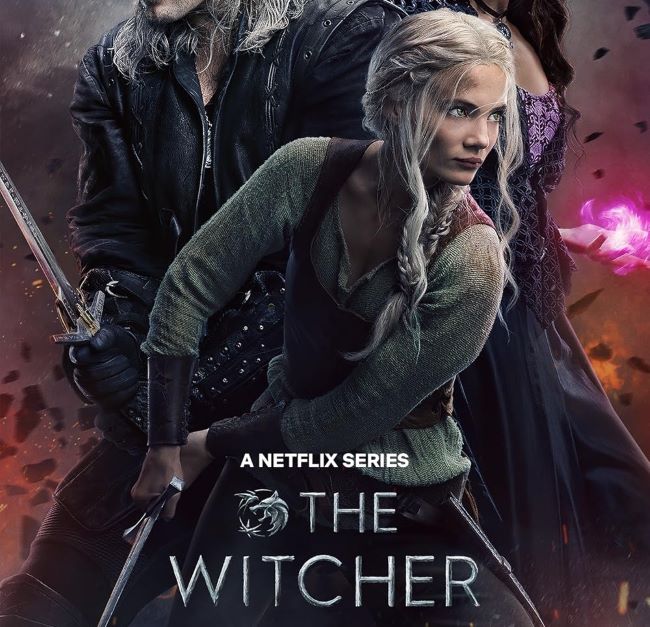
Designers and fans love the Witcher font because it brings instant fantasy energy to any project. Whether it’s used for posters, game-inspired edits, or fan art, the font delivers that perfect mix of grit and elegance. It’s not flashy in a modern way—it’s raw, powerful, and steeped in the kind of lore that makes you think of kingdoms rising and falling.
About The Witcher
The series The Witcher, based on Andrzej Sapkowski’s books and the hit video games, premiered in 2019 and quickly became a global phenomenon. Following Geralt of Rivia, a monster hunter navigating fate, politics, and danger, the show is full of battles, intrigue, and unforgettable characters. Much like the Witcher font, it’s bold, immersive, and impossible to ignore.